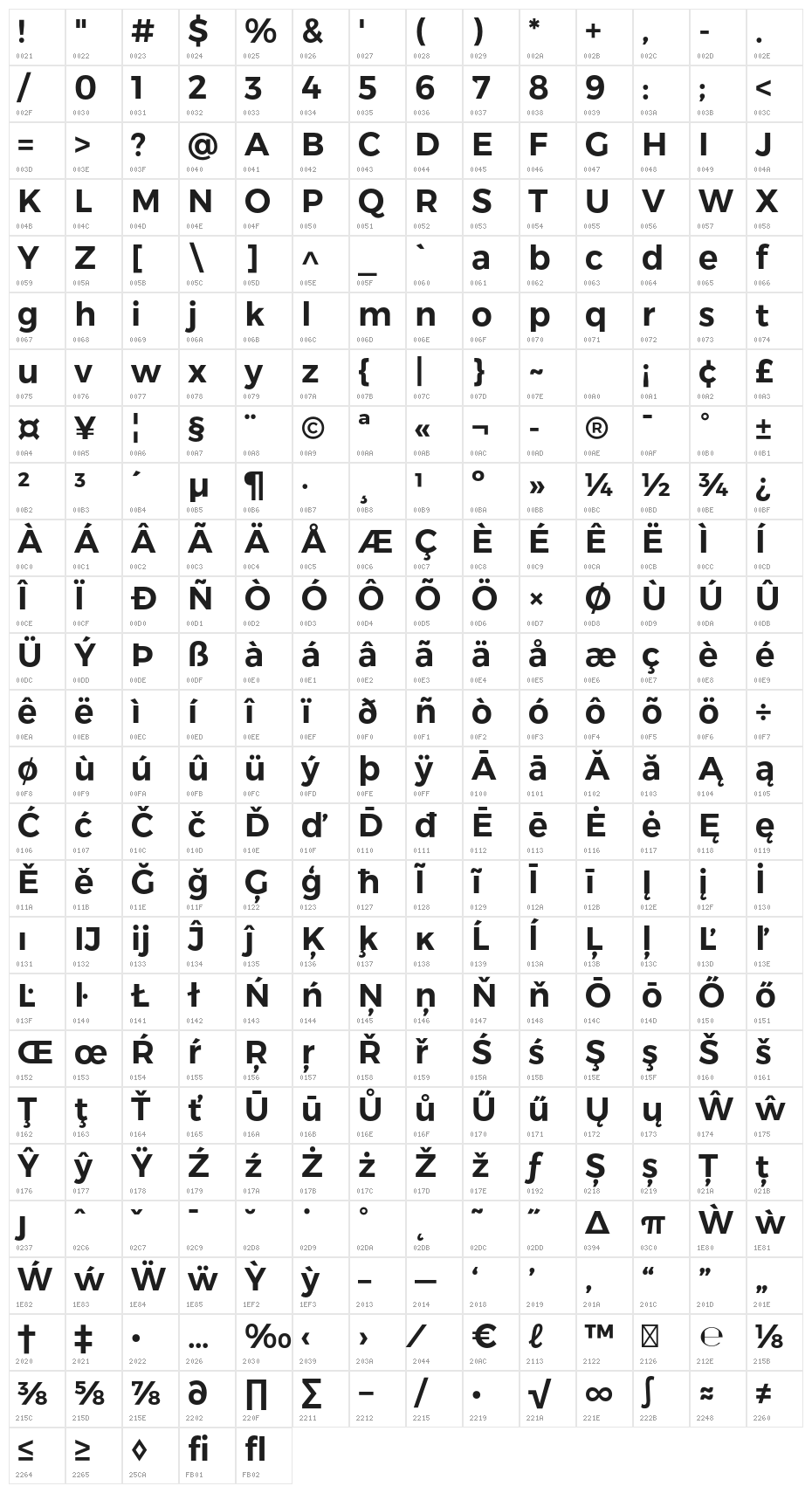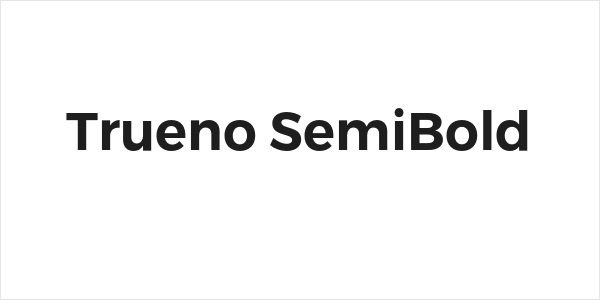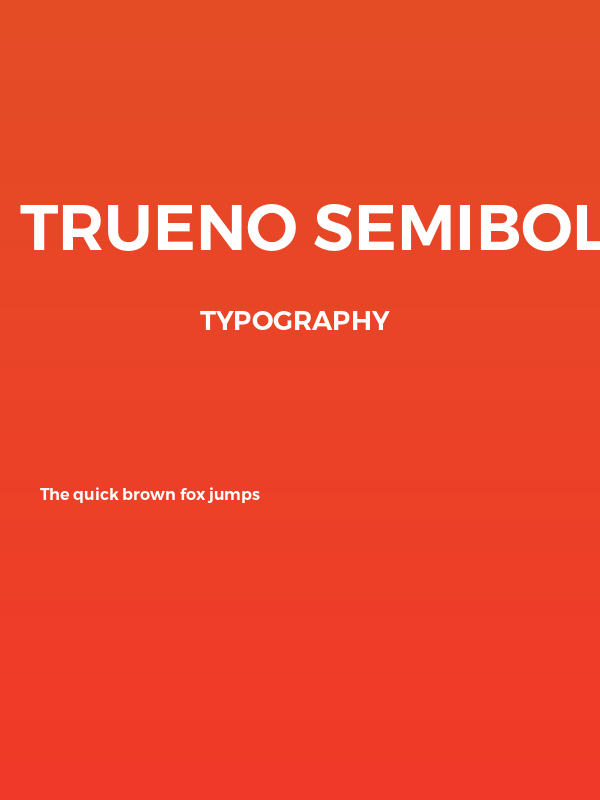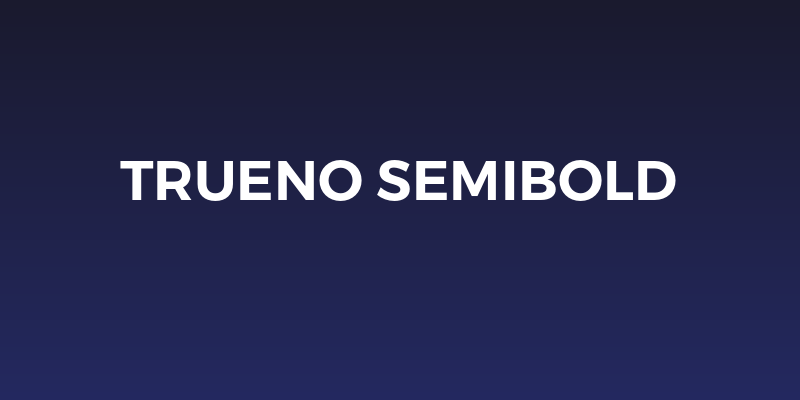
Trueno SemiBold Font
Trueno SemiBold Description
This font features a clean and modern sans-serif design with a semi-bold weight, providing a strong and confident appearance. The characters are well-balanced with uniform stroke widths, contributing to its legibility and versatility. The uppercase letters are bold and impactful, while the lowercase letters maintain a friendly and approachable feel. The numerals are clear and distinct, making them suitable for various applications. Special characters are included, enhancing its utility for diverse projects. Overall, this font exudes a contemporary and professional vibe, ideal for both digital and print media.